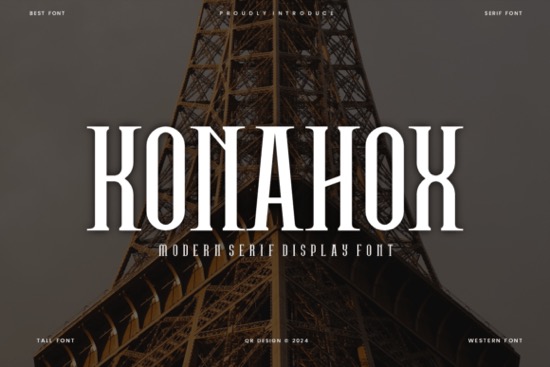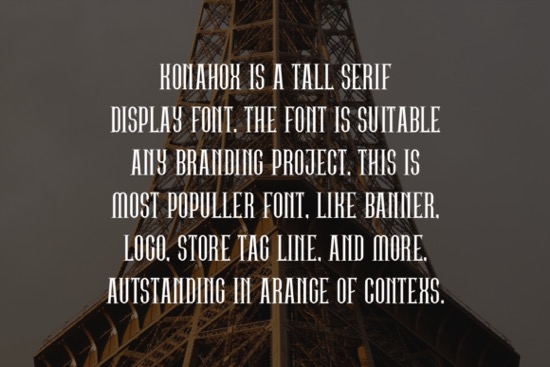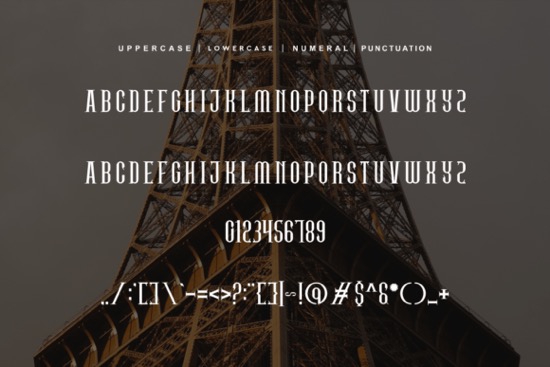
Konahox is a beautifully designed display font with an elegant serif style. The font is suitable for any branding project like logo, sport, and many more. Outstanding in a wide range of contexts. It is versatile and can be applied to social media graphics, invitations, branding, and so on.
Konahox Display Serif Font
Konahox Font